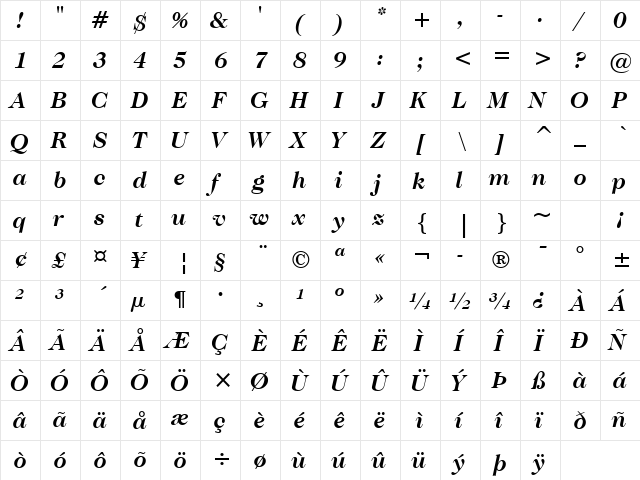
Caslon224 Bk BT Bold Italic Font Preview
Caslon224 Bk BT Bold Italic
Caslon224 Bk BT Bold Italic Font Details
Design Context for Caslon224 Bk BT Typeface
Caslon224 Bk BT is a composed and adaptable typeface that performs quietly and consistently across a wide range of design contexts. The dynamic lean of this cut emphasises speed and emphasis in any layout. Its bold stroke weight gives it real presence on the page.
Pro Tip: Use Caslon224 Bk BT for emphasis, pull quotes, and subheadings where its slanted energy can add rhythm to the layout.